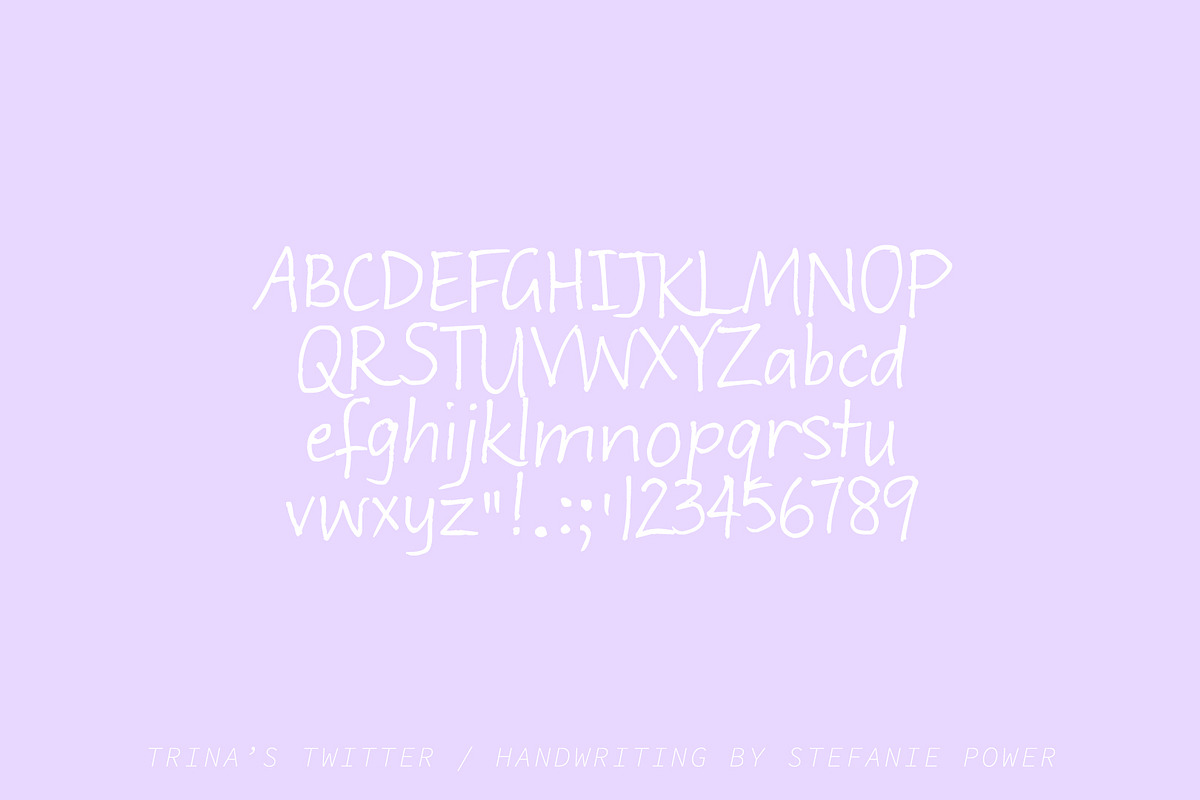
Trina's Twitter | Handwriting Font
Introducing "Trina's Twitter", a handwritten font by my mum. This font is perfect for teacher's who prefer to type while maintaining a personal handwritten touch. Whether writing a personal message or creating classroom resources, this is the font for you.